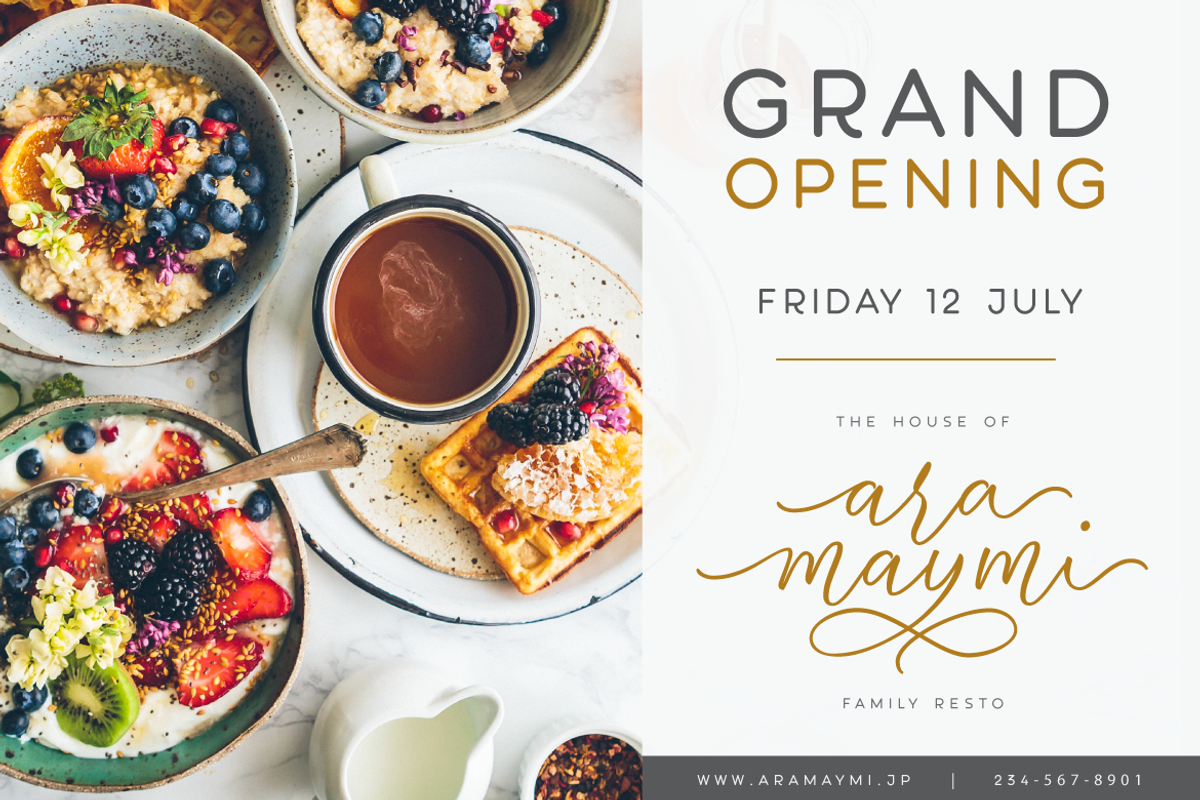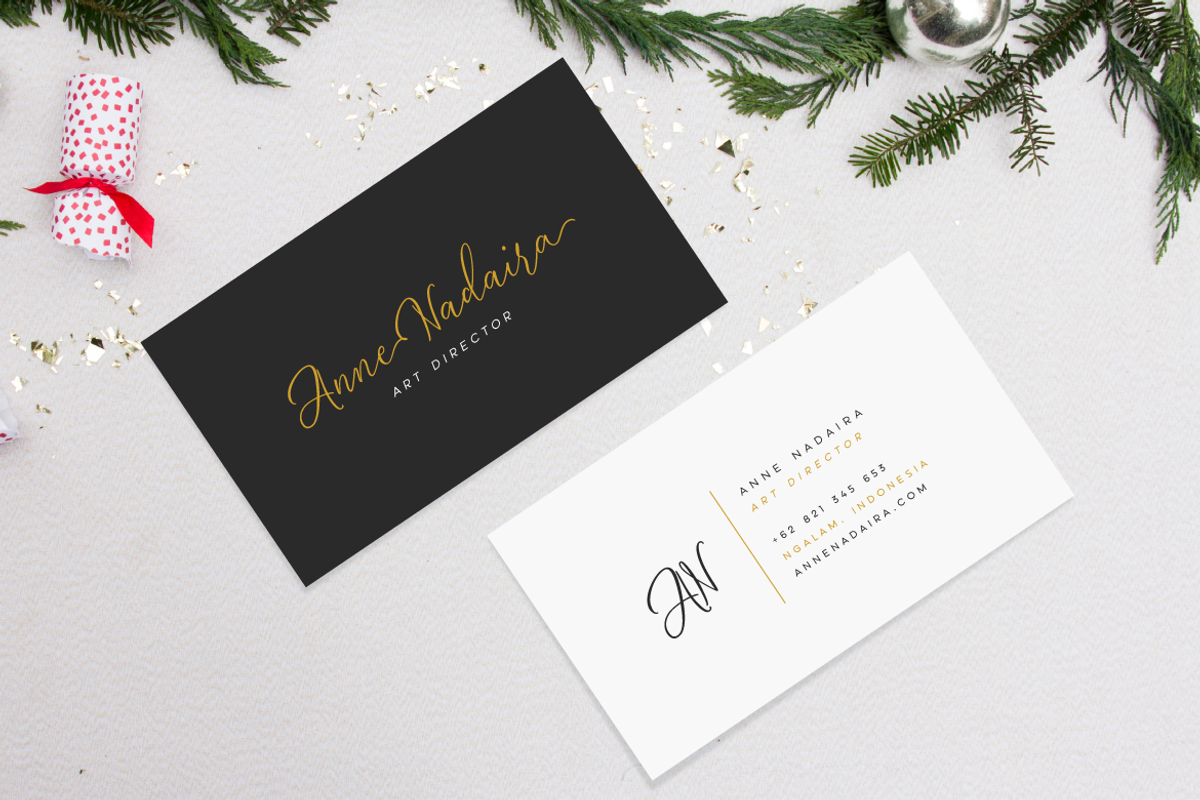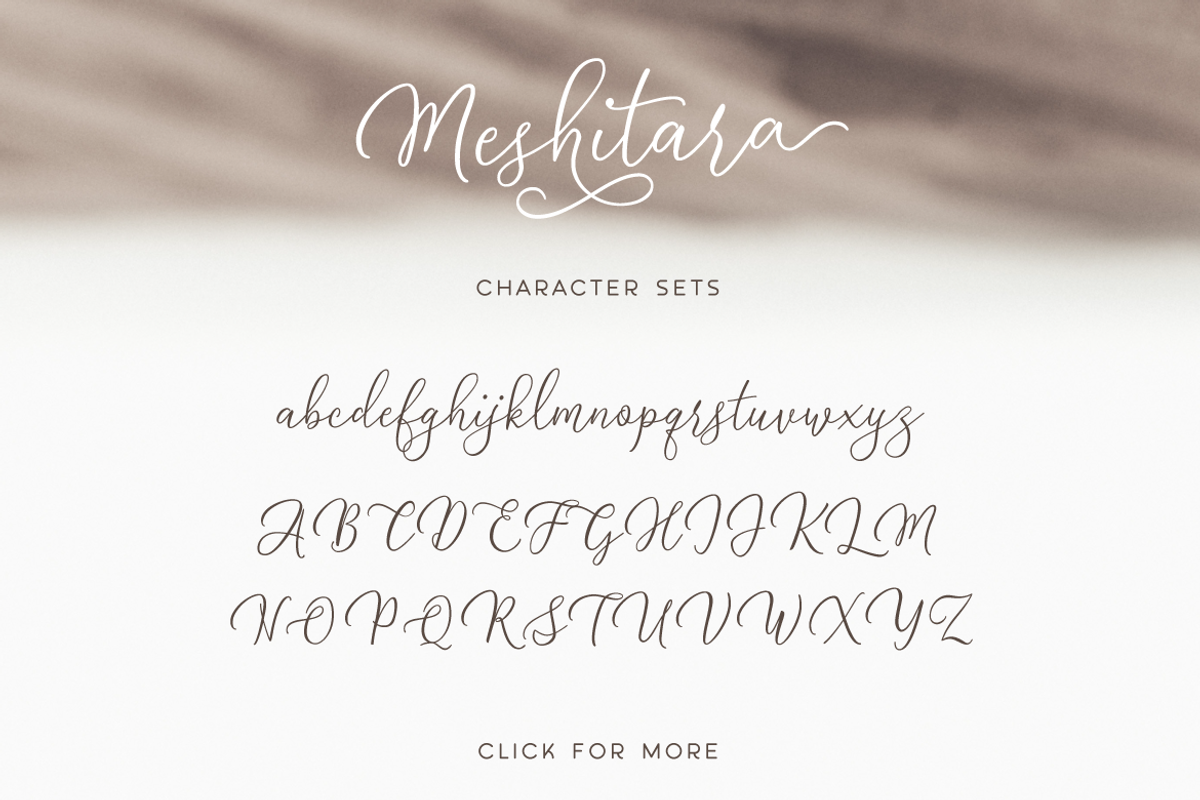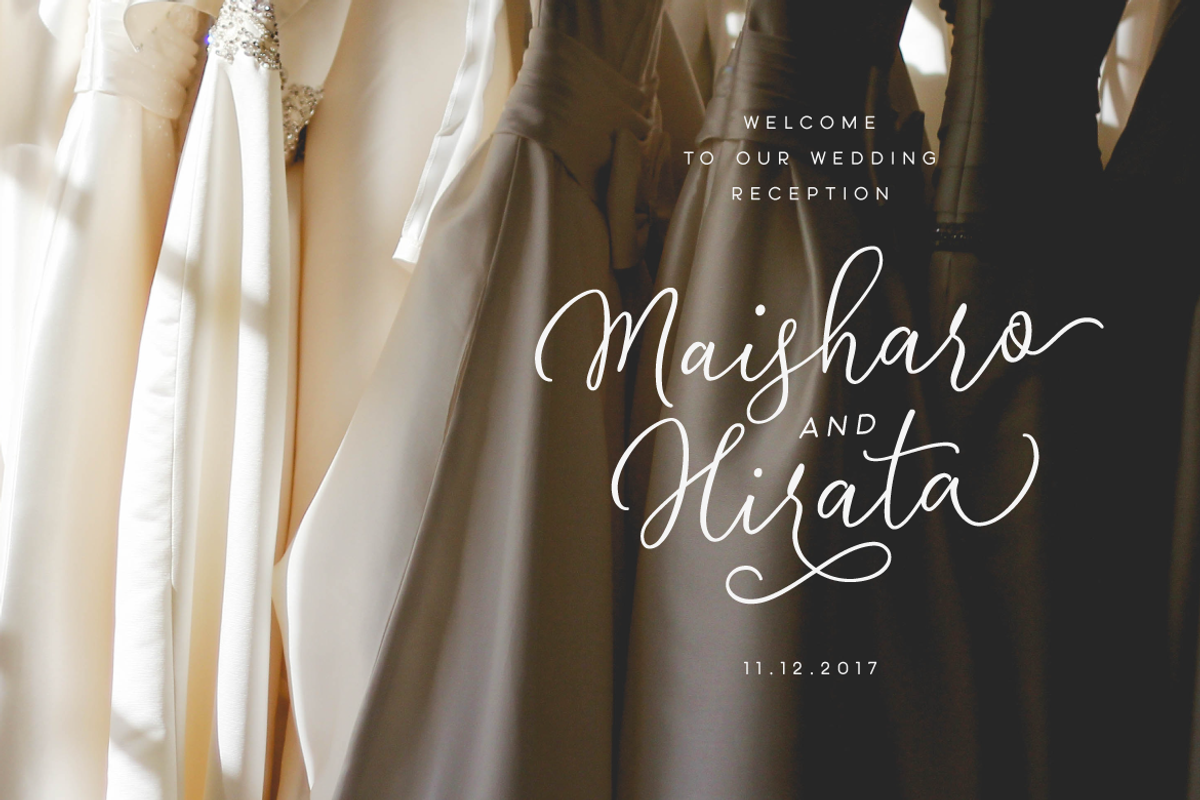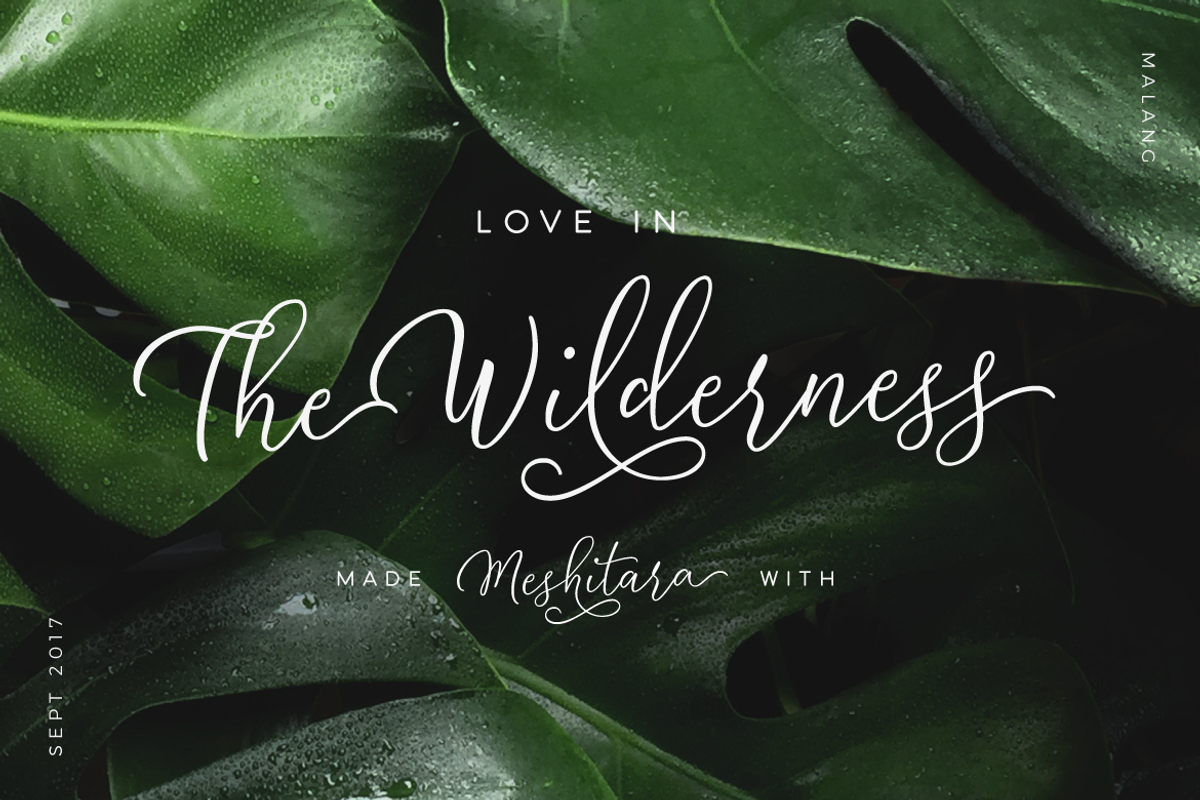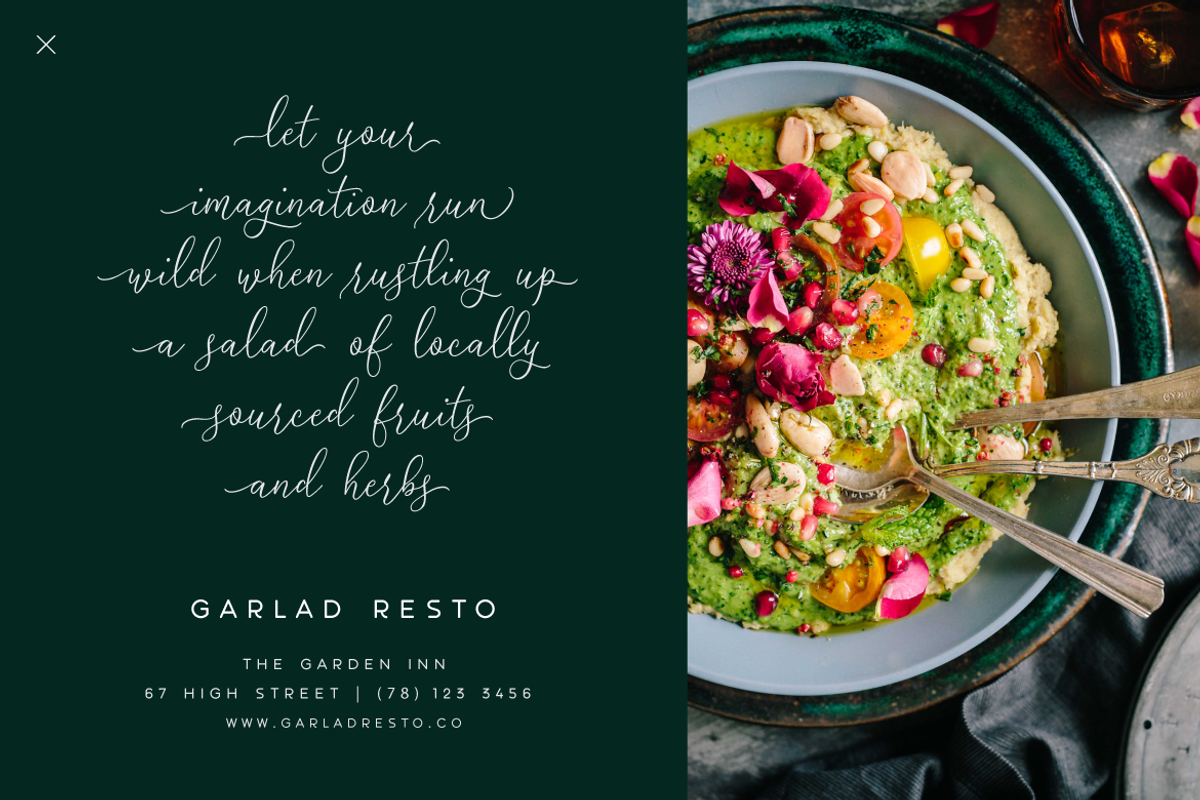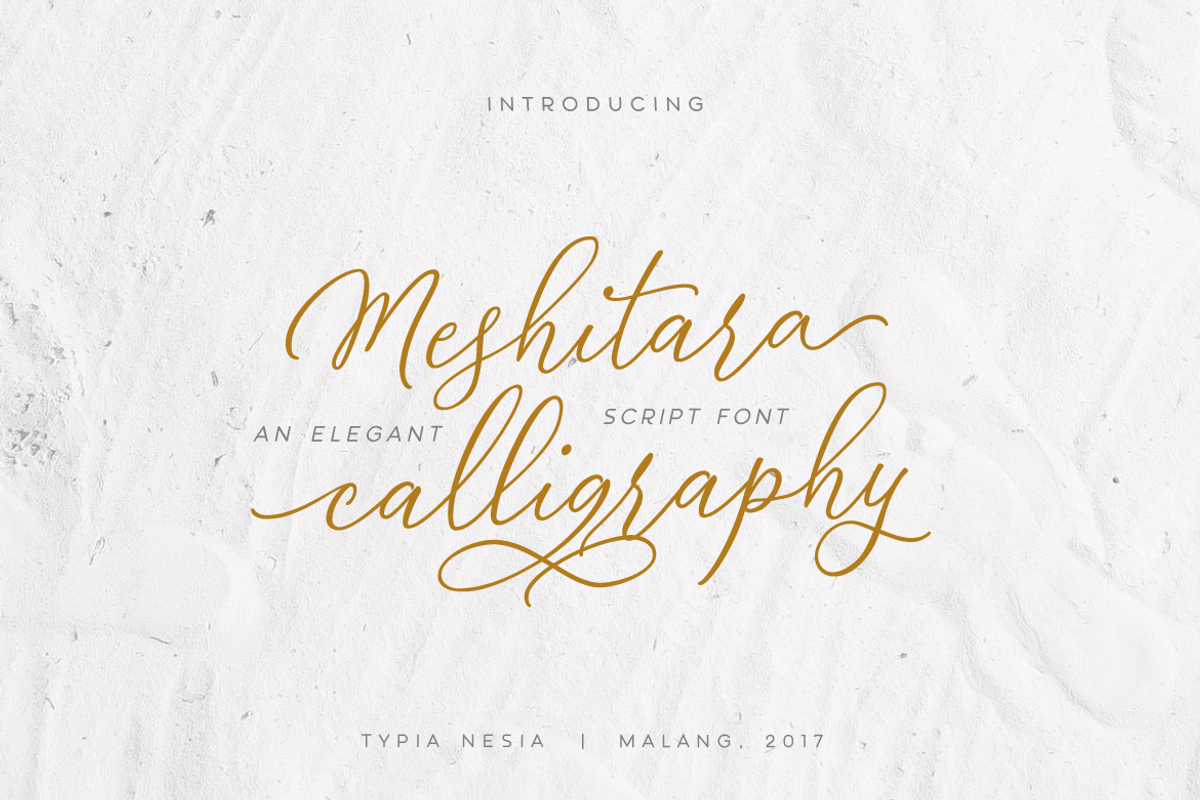
Meshitara Elegant Font
Hello, looking for a new elegant font with romantic feels and natural?
PERFECT! Say hello to Meshitara an elegant and modern calligraphy / cursive font. Meshitara inspired by love poems and beautiful nature. I made it with a lots of fun. Especially developing the alternates and other features. I tried to make a beautiful form for each characters. But I keep it elegant and simple as I can. So it does not look busy with over swash or flourishing. So I hope you enjoy it, as I enjoyed making it.
Meshitara Font Duo is perfect for your up coming projects. Such as modern invitation design, branding, stationery design, blog design, modern advertising design, card invitation, art quote, home decor, book/cover title, special events ( wedding, birthday, etc ), and any modern elegant calligraphy needs.
Why Meshitara Elegant Font is worth a look
Meshitara Elegant Font by Typia Nesia fits naturally into Branding, posters, packaging, typography.